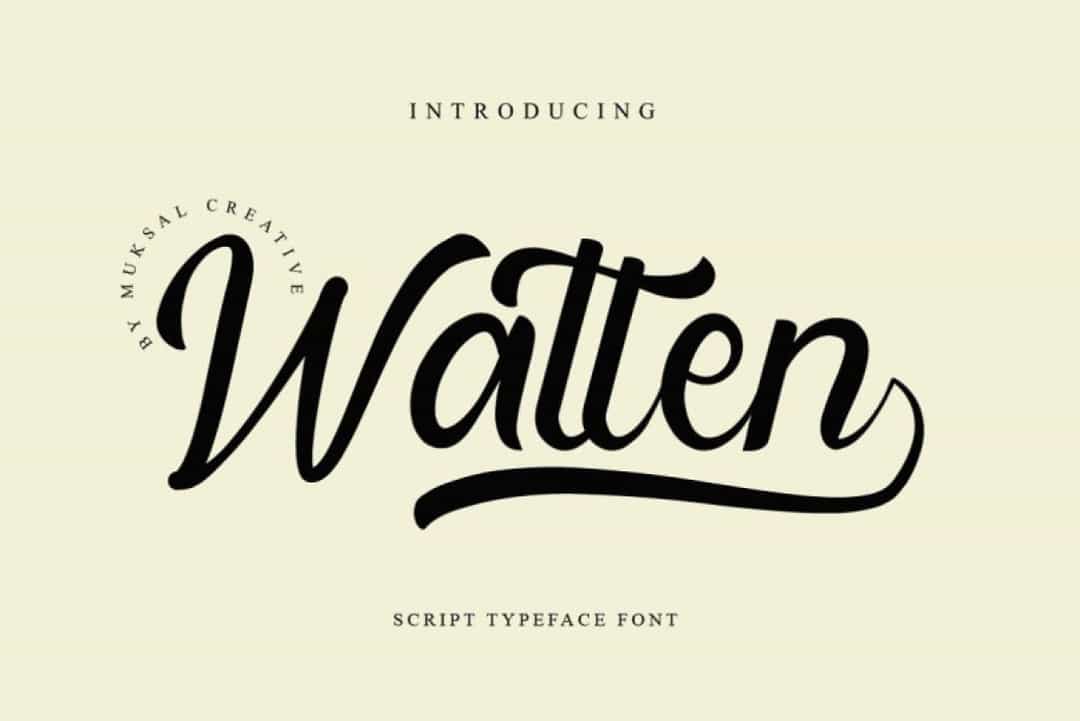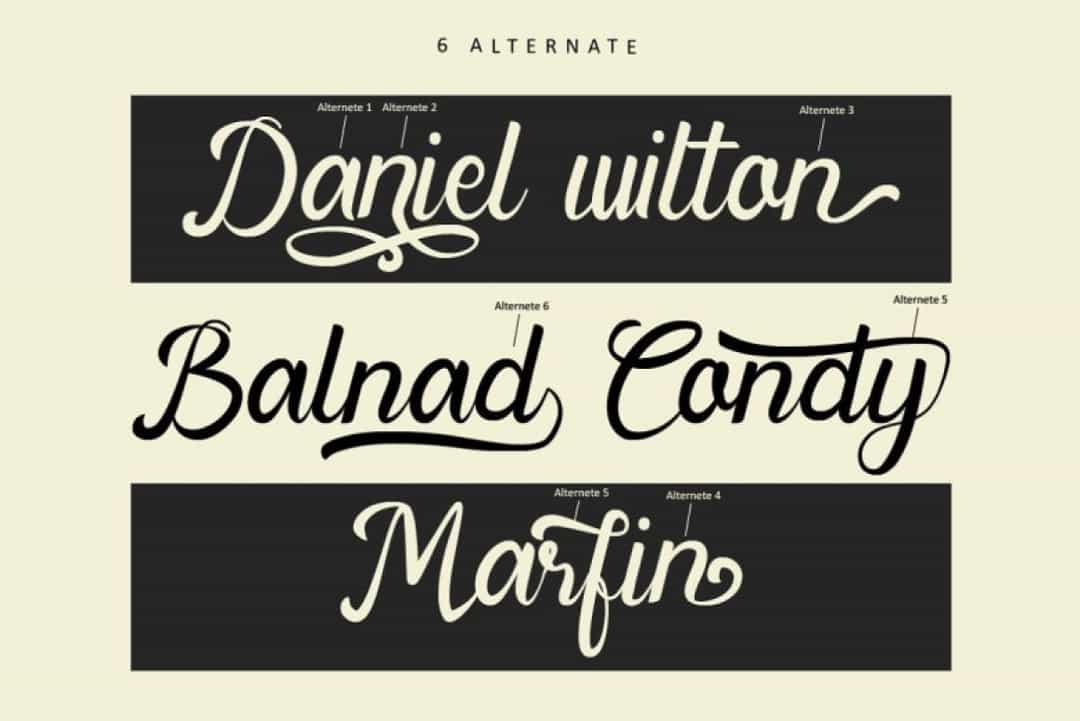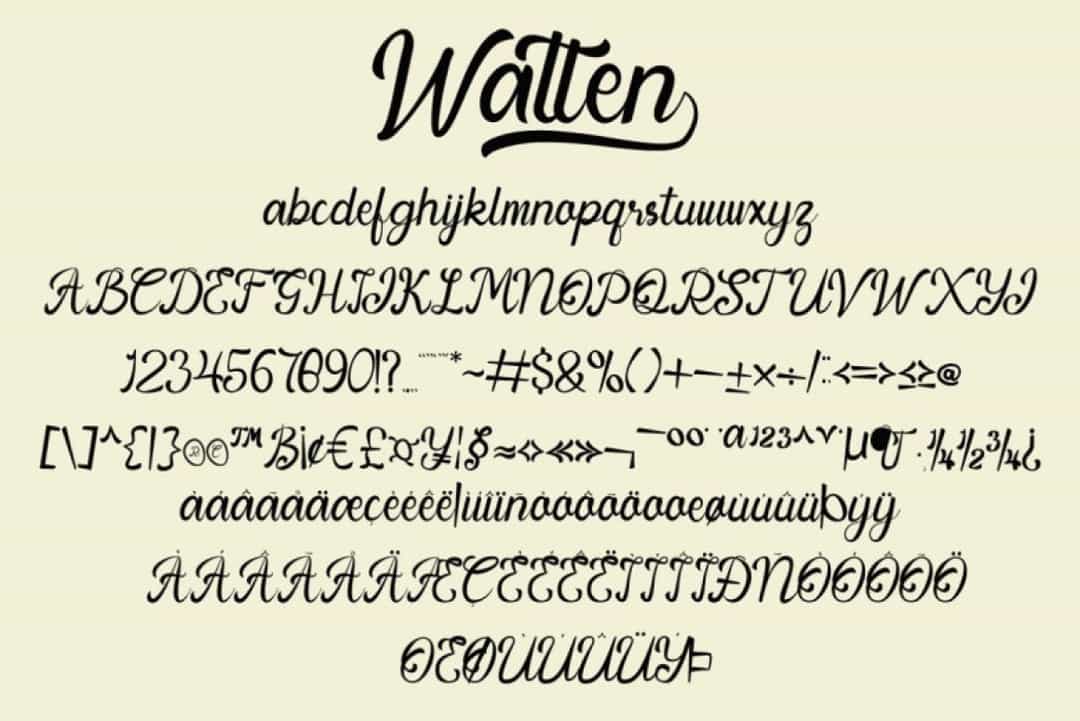
Discover Watten Font, part of the Calligraphy collection—a versatile and unique font perfect for adding a personal touch to your projects. Download it for free and enjoy crafting designs with style, from invitations to social media posts. This font is available exclusively for personal use, giving you the freedom to create without limits. Unlock your creativity with Watten Font today!
Watten font is an elegant calligraphy-inspired script font with digital brush strokes to give it an authentic appearance, making this font perfect for wedding invitations, business cards, logos and signatures – not forgetting calligraphy itself!